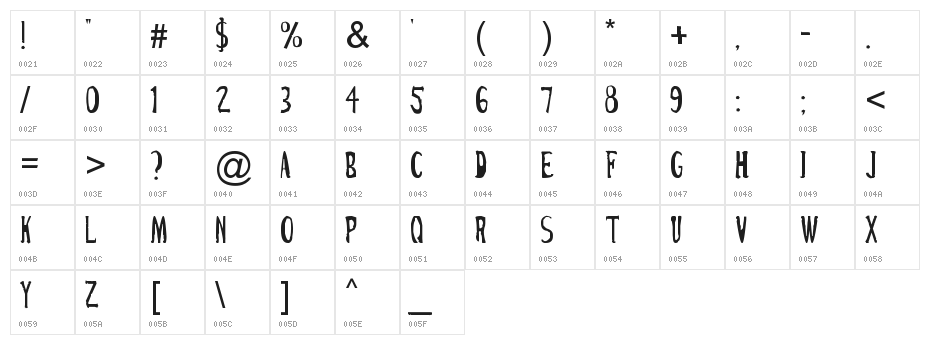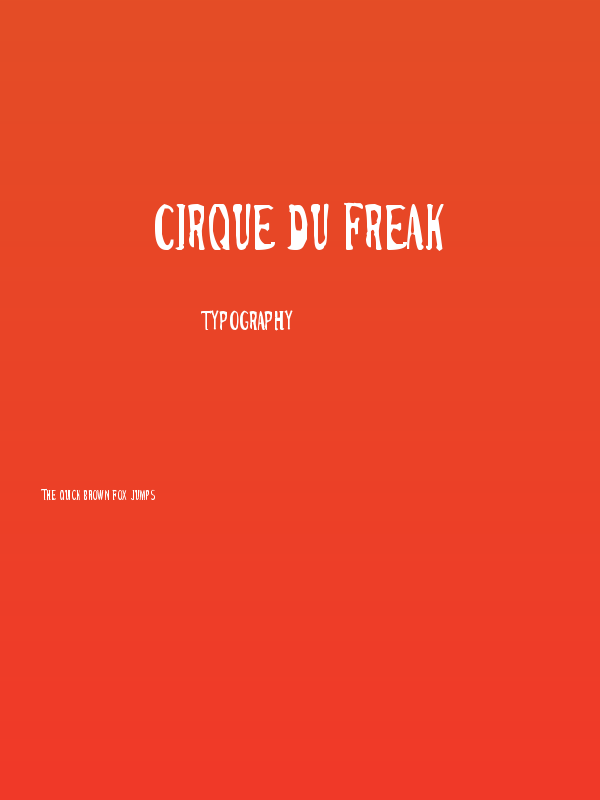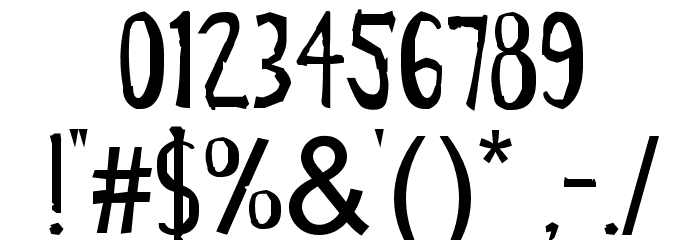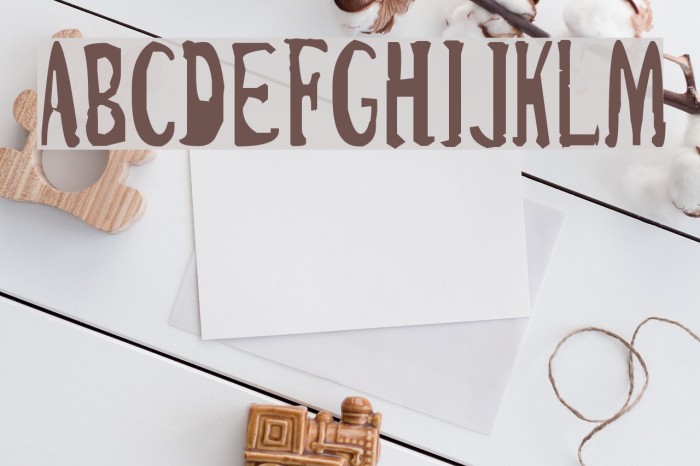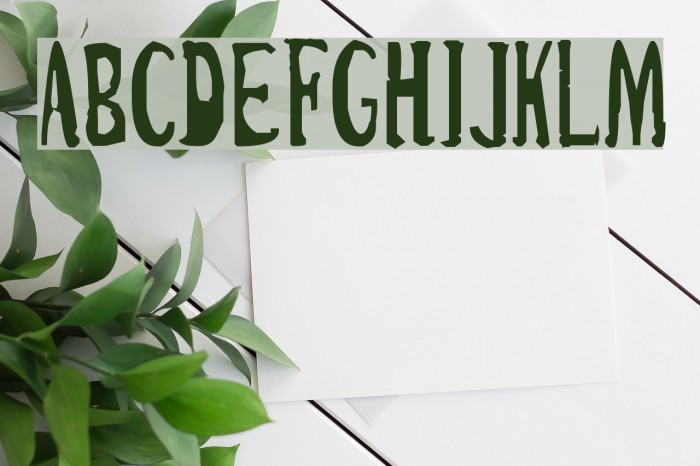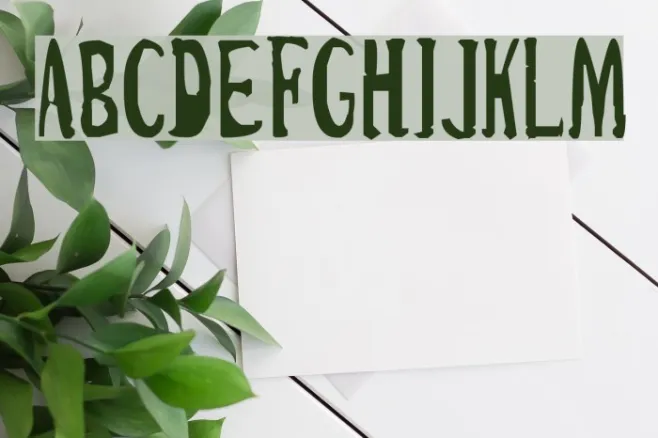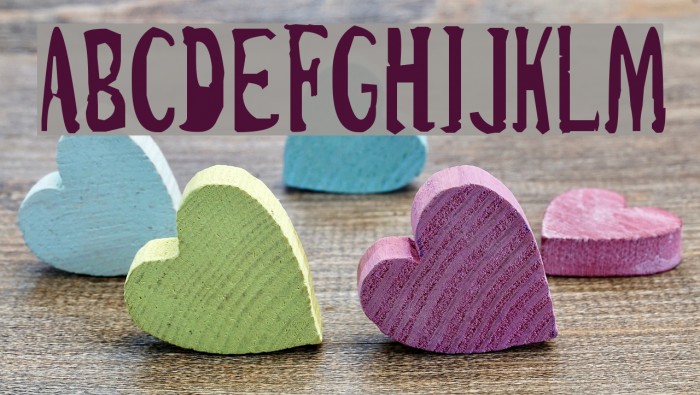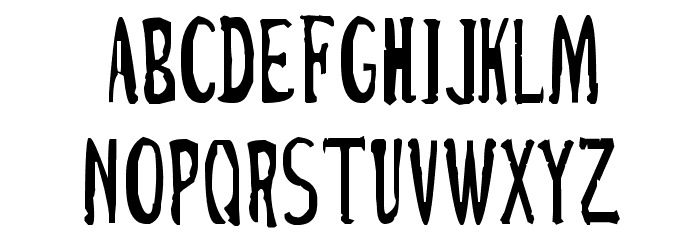
Cirque Du Freak Font
Cirque Du Freak Description
This font features a bold and dramatic style with a hand-drawn appearance, reminiscent of vintage circus posters. The characters are tall and slightly condensed, with uneven strokes that add a whimsical and playful touch. The uppercase and lowercase letters maintain a consistent style, with exaggerated curves and varying line thickness that create a sense of movement and energy. The numerals and special characters follow the same design principles, ensuring a cohesive look across all glyphs. This font is ideal for projects that require a touch of nostalgia and creativity, making it perfect for eye-catching headlines and artistic designs.
| Proposed Projects | Ideal for circus-themed posters, playful branding, artistic headlines, and creative event invitations. |